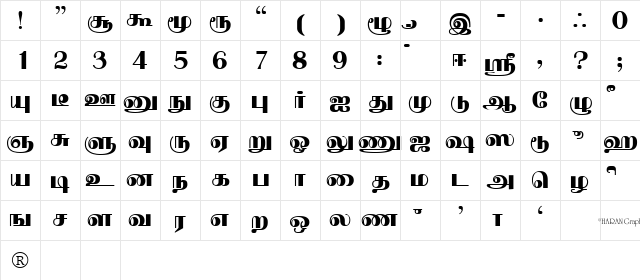
Nallur Plain
Design Context for Nallur Typeface
Nallur takes a measured approach to typography — its balanced proportions and neutral character make it a reliable workhorse for both digital and print work.